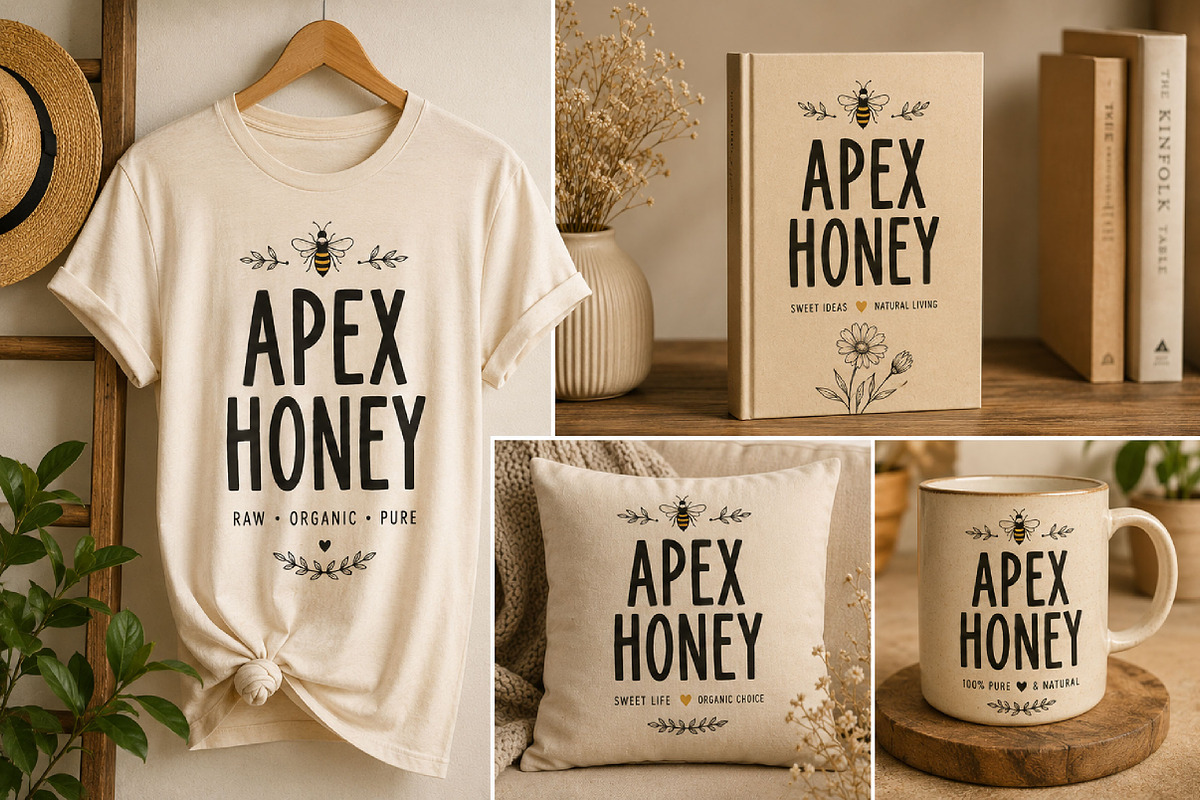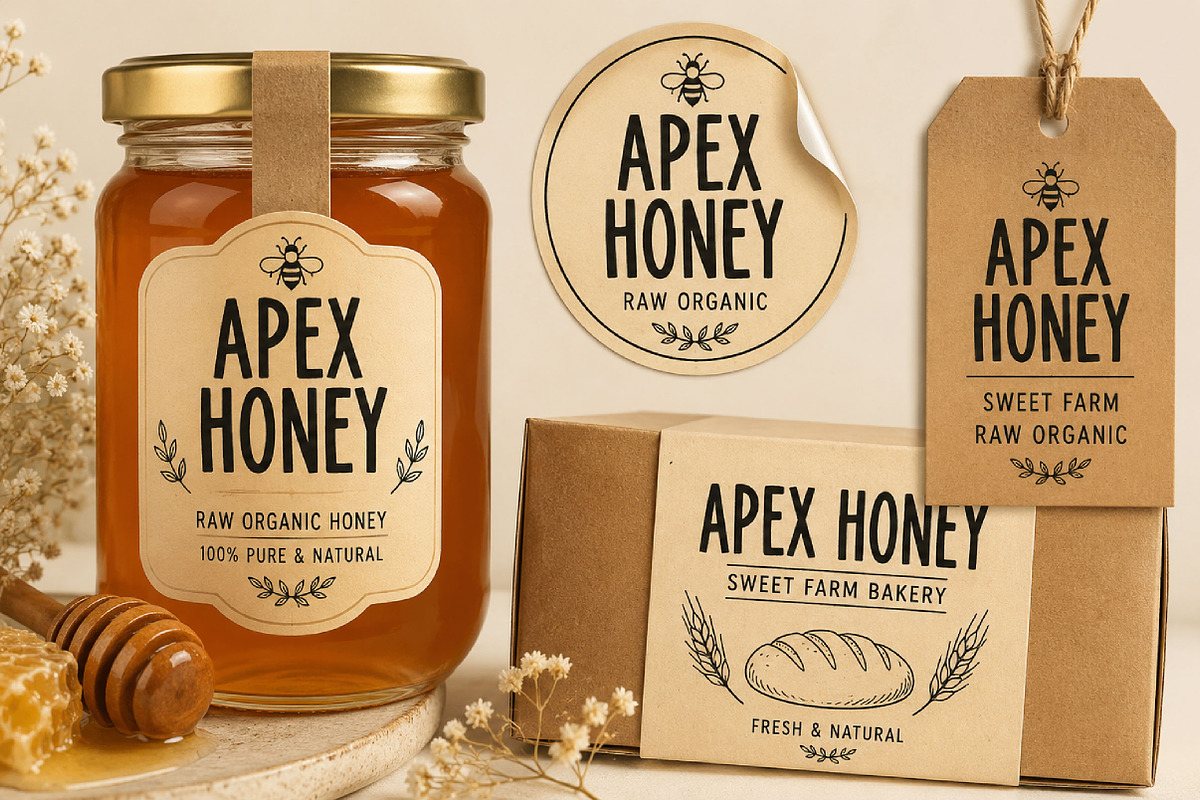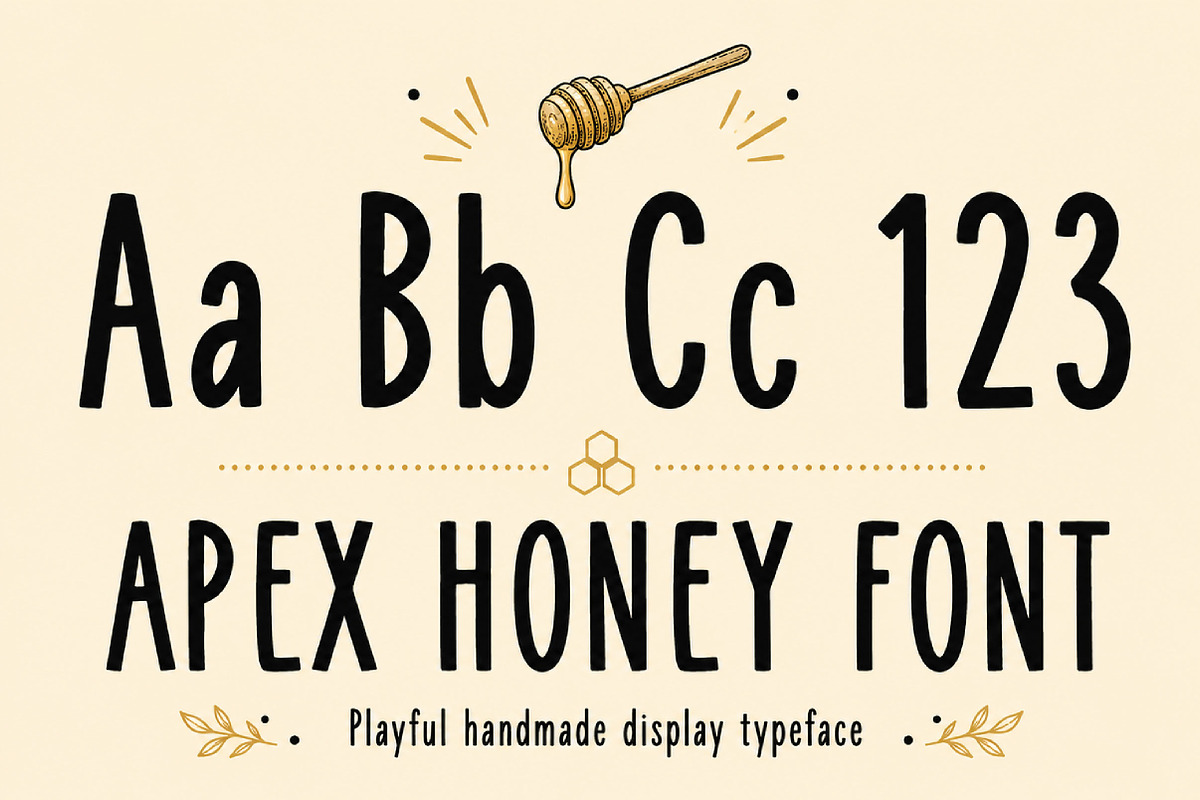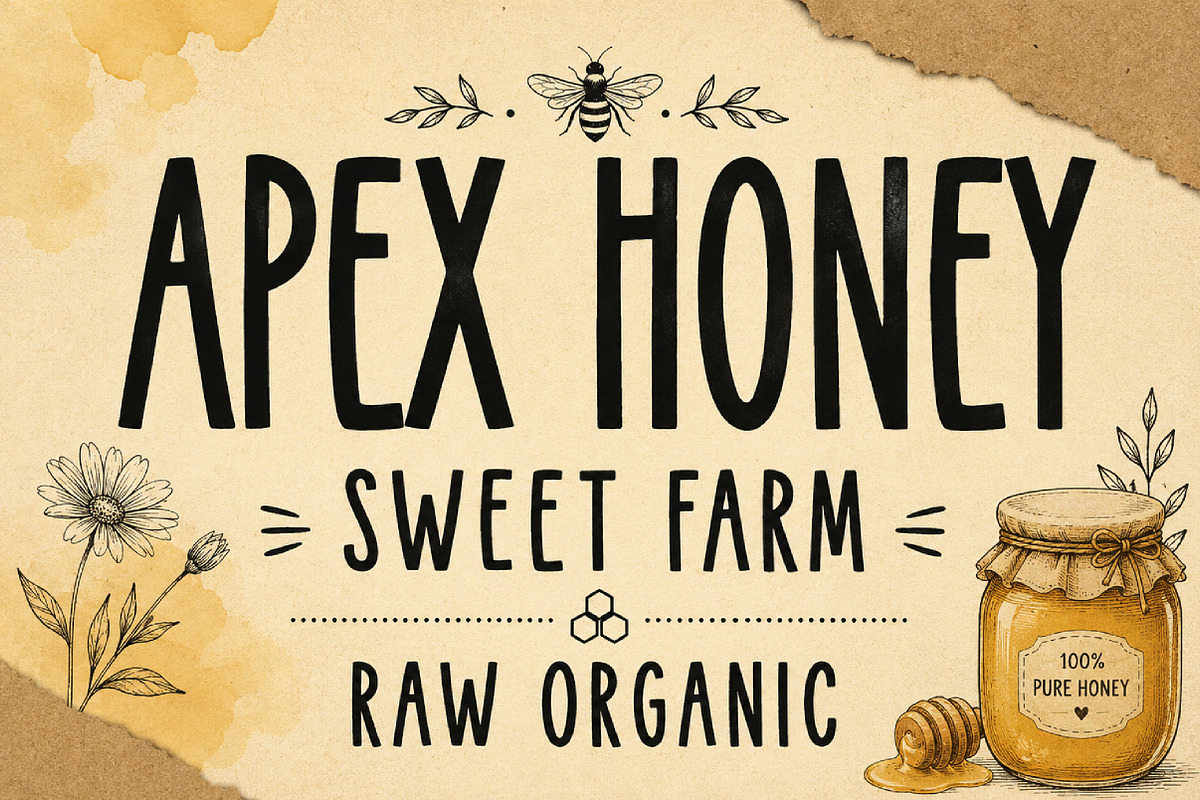
Apex Honey
Apex Honey – Tall Handwritten Display Font
Short Description
Apex Honey is a tall, bold, and playful handwritten display font, perfect for posters, logos, packaging, branding, headlines, and creative projects.
Full Description
Apex Honey is a stylish handwritten display font designed with tall letterforms, bold strokes, and a fun handmade character. Its narrow structure and slightly irregular shapes give it a unique, playful, and eye-catching appearance.
With its clean yet expressive style, Apex Honey is perfect for projects that need bold personality and creative charm. Whether you are designing posters, logos, packaging, branding materials, social media graphics, merchandise, or event designs, this font helps your typography stand out with a fresh and memorable look.
The tall handwritten form makes Apex Honey especially suitable for display use, headlines, titles, labels, and statement typography. It works beautifully across both print and digital designs, offering a friendly yet confident style for many creative themes.
Posters and headlines
Logo design
Branding projects
Packaging and labels
Merchandise and apparel
Event graphics
Greeting cards
YouTube thumbnails
Handmade-style designs
Statement display typography
Uppercase letters
Lowercase letters
Tall handwritten style
Bold narrow letterforms
Playful handmade appearance
Clean and readable display font
Perfect for creative projects